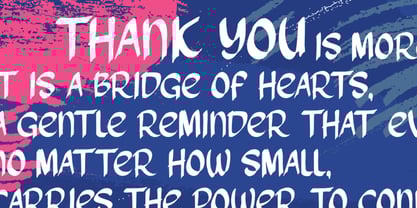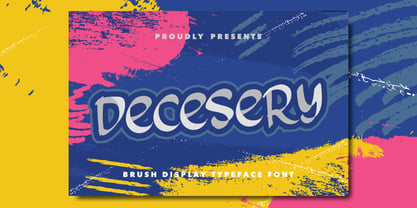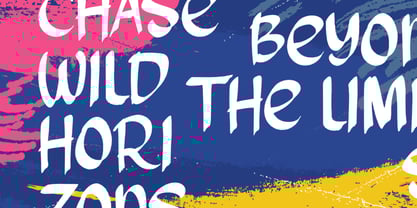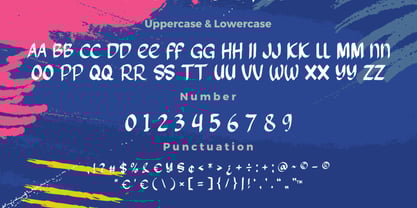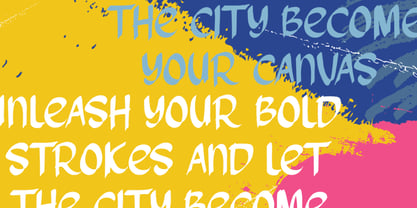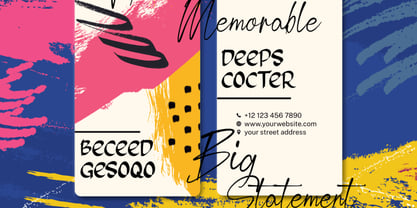
Decesery
by Bayuktx
The Decesery Font Family was designed by Bayu Aji Fais Mursid and published by Bayuktx. Decesery contains 1 styles. More about this family
Decesery Brush Typeface Font Decesery is a bold and playful brush display typeface that captures the spirit of handwritten expression with a modern edge. Designed with smooth curves and natural stroke details, this font delivers a casual yet striking personality, making it perfect for eye-catching titles and creative projects. Its handcrafted look brings a sense of authenticity and energy, suitable for posters, headlines, branding, packaging, or any design that needs a strong personal touch. Deces balances boldness and friendliness, ensuring versatility across both digital and print media. With its unique brush style, Decesery adds a fresh and dynamic character to your typography collection—ideal for designers seeking a fun yet professional display font. Key Features : * Uppercase & Lowercase Letters * Numerals & Punctuation * Multilingual Support * PUA Encoded & OpenType Features Perfect for: Logos, Posters, Headlines, Packaging, Quotes, Branding, Social Media, and more.
Designers: Bayu Aji Fais Mursid
Foundry: Bayuktx